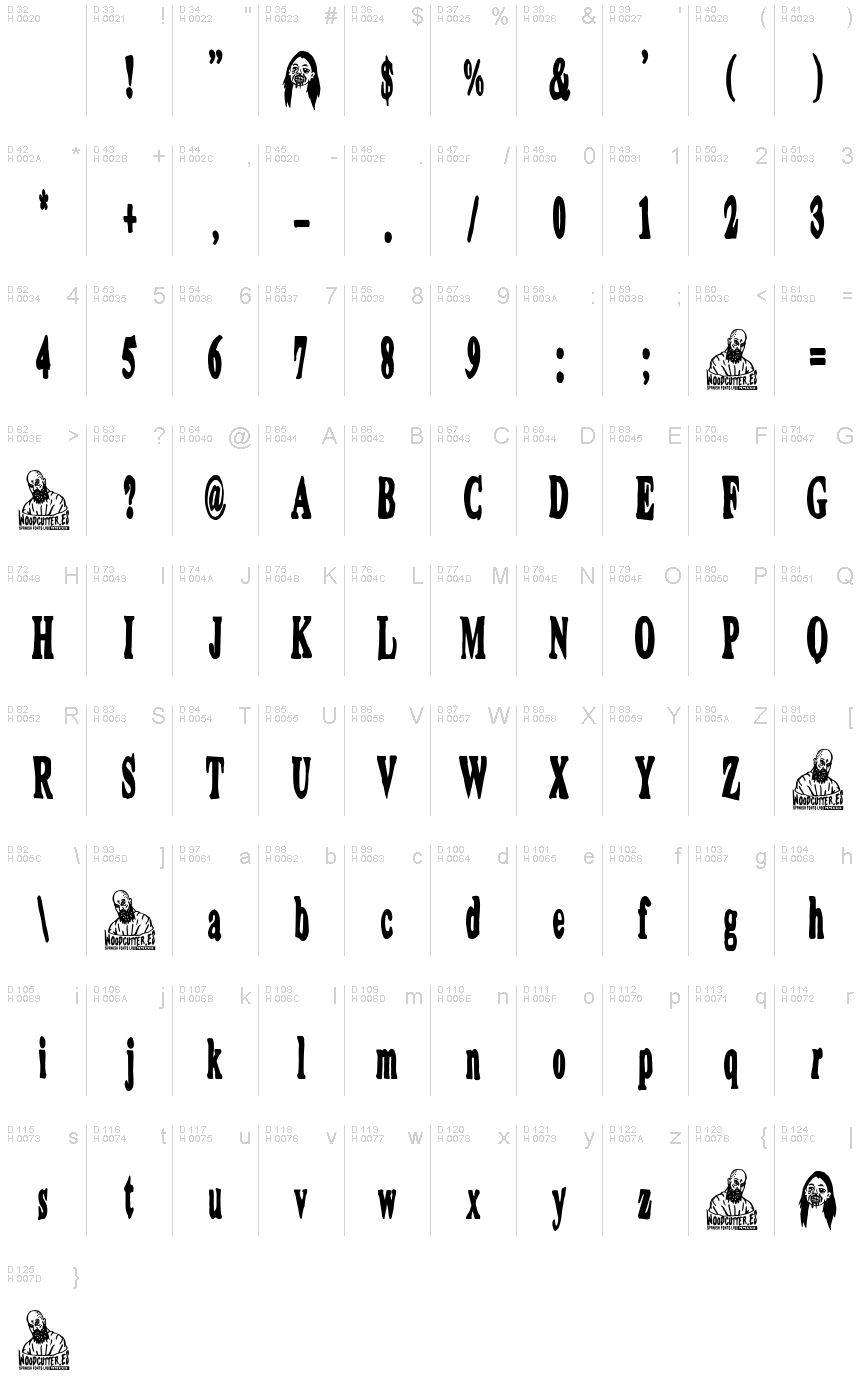
Dirty Montero
Dirty Montero, crafted by Woodcutter, is a captivating display font that exudes a bold, weathered charm. Its condensed, eroded style evokes a sense of rugged authenticity, infusing any design with a raw, industrial aesthetic. The striking letterforms, with their uneven edges and textured surfaces, create a visually arresting and memorable typographic presence.
This versatile font lends itself well to a variety of design applications, from gritty branding and packaging to impactful event posters and editorial layouts. Its condensed nature makes it an excellent choice for headlines, titles, and eye-catching accents, allowing designers to make a strong visual impact within limited spaces. Dirty Montero's unique character and adaptability make it a compelling option for designers seeking to infuse their work with a touch of industrial-inspired flair.